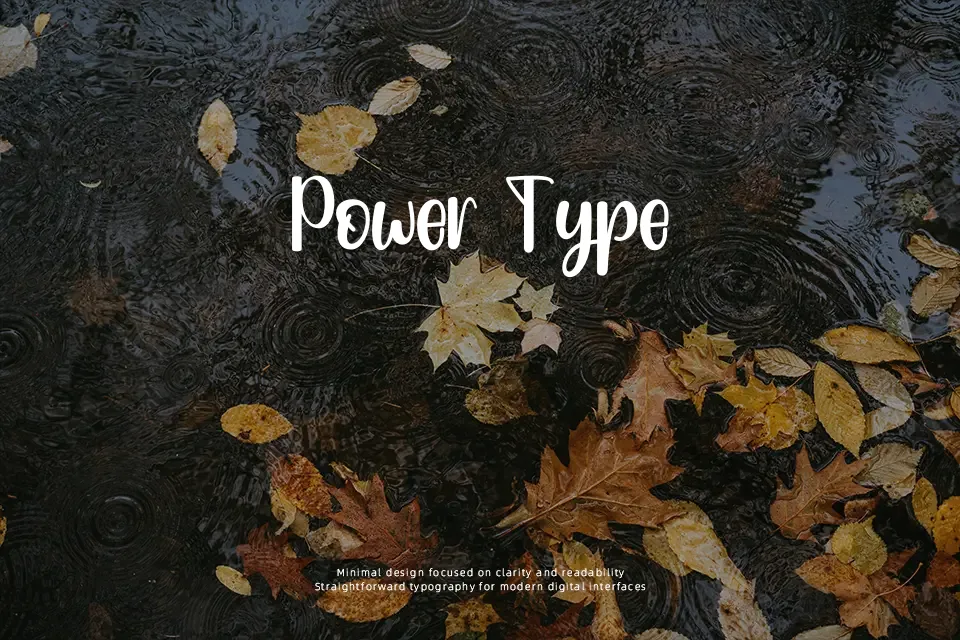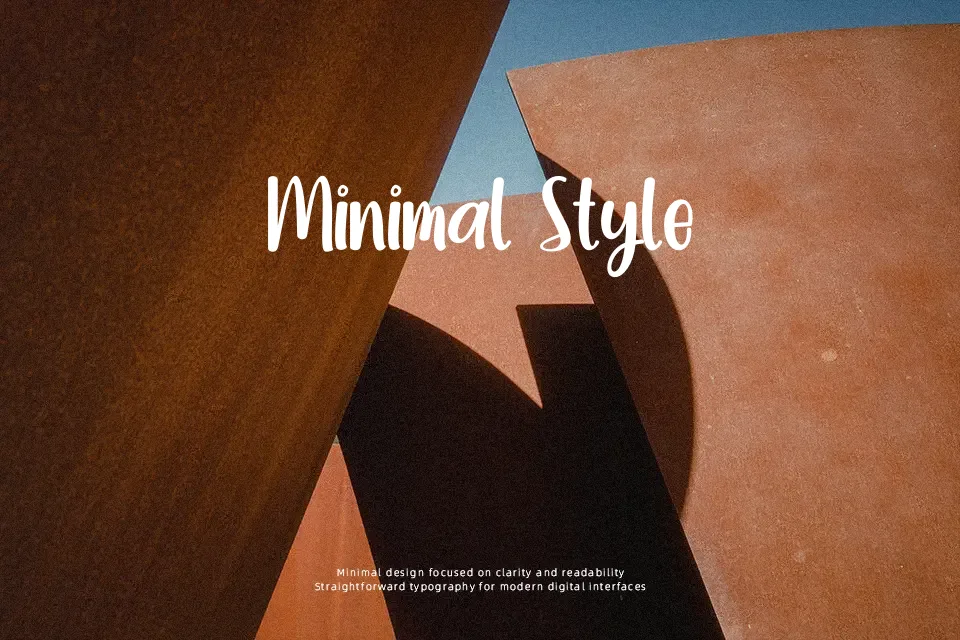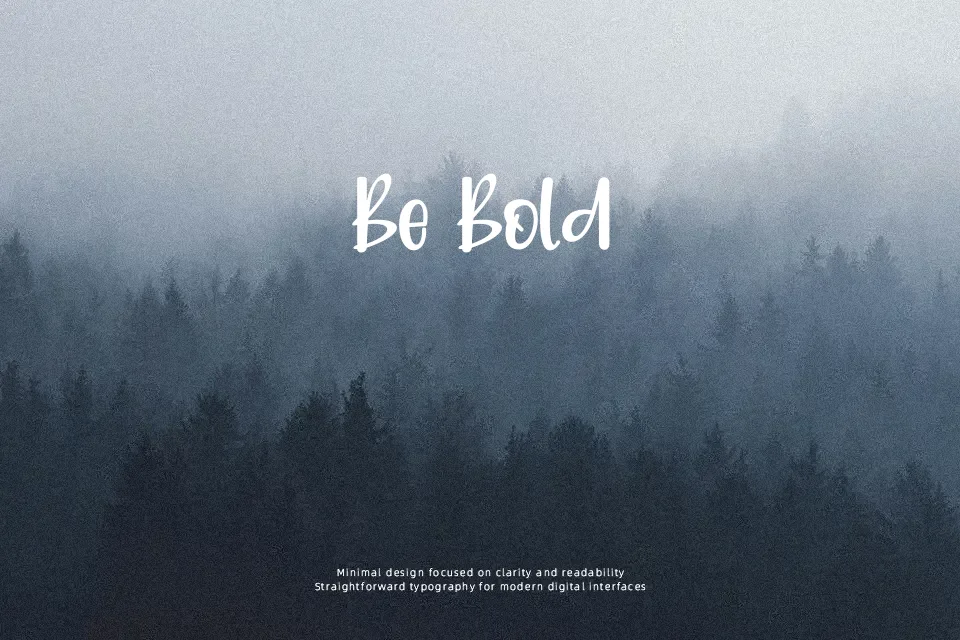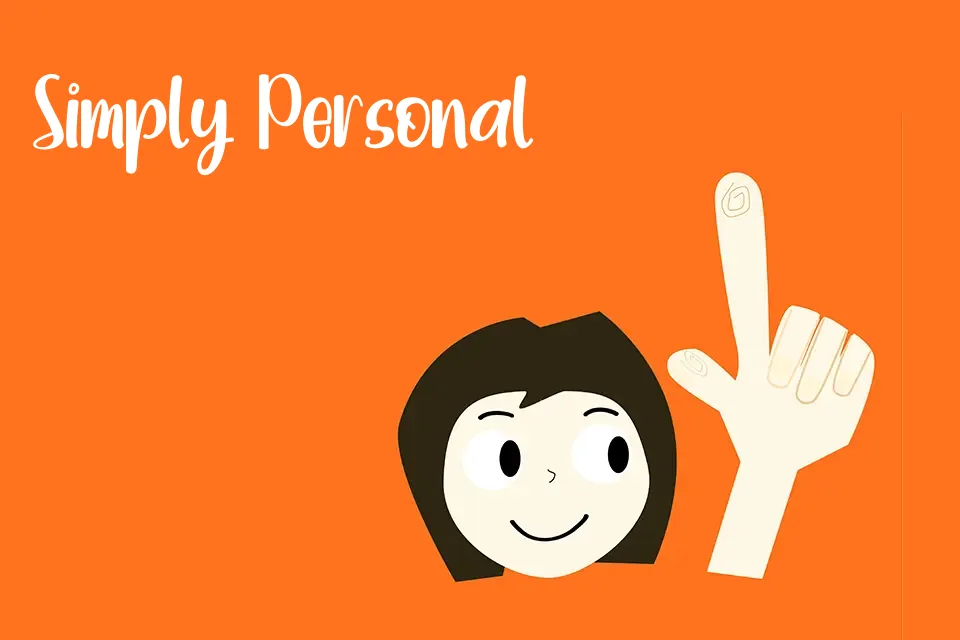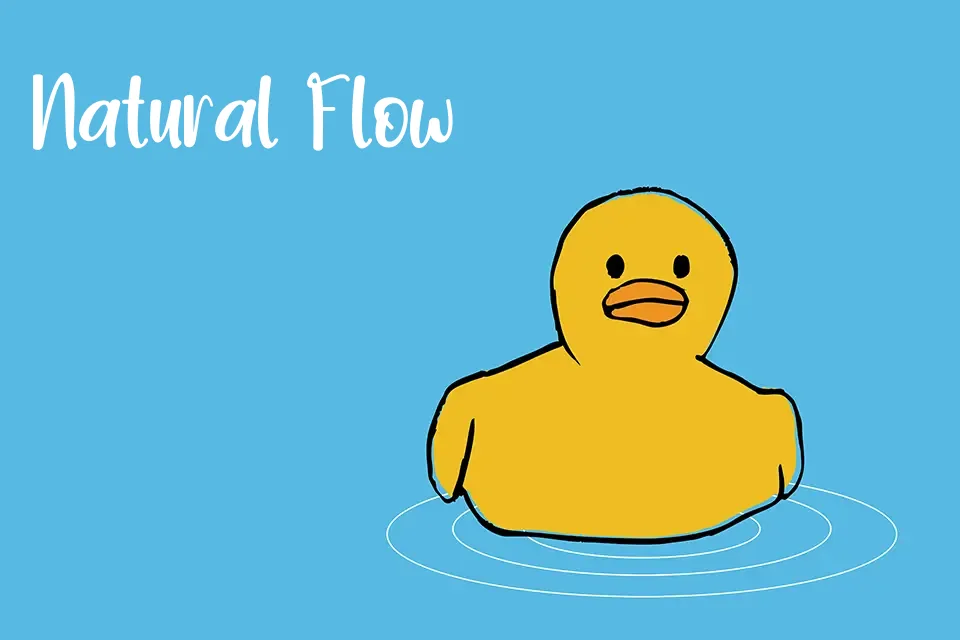
Bright Dream Font
Bright Dream blends a comic-style structure with smooth, rounded strokes and generous curves, giving text a relaxed, friendly rhythm rather than a strict, formal look. Letters sit with slightly uneven movement, so headlines feel hand-drawn and approachable instead of mechanically aligned. It works especially well for children’s book covers, fun product packaging, casual Instagram carousels, and informal event flyers where personality matters more than precision. However, the loose spacing and playful shapes can feel out of place in serious corporate branding or long editorial layouts that need tight hierarchy and calm reading flow.
kids product packaging,social media quote images,casual event posters,playful brand headlines
formal business documents,long body text layouts,minimal luxury branding,strict corporate presentations
Perfect for branding, headline, and kids, with a creative and comic style.